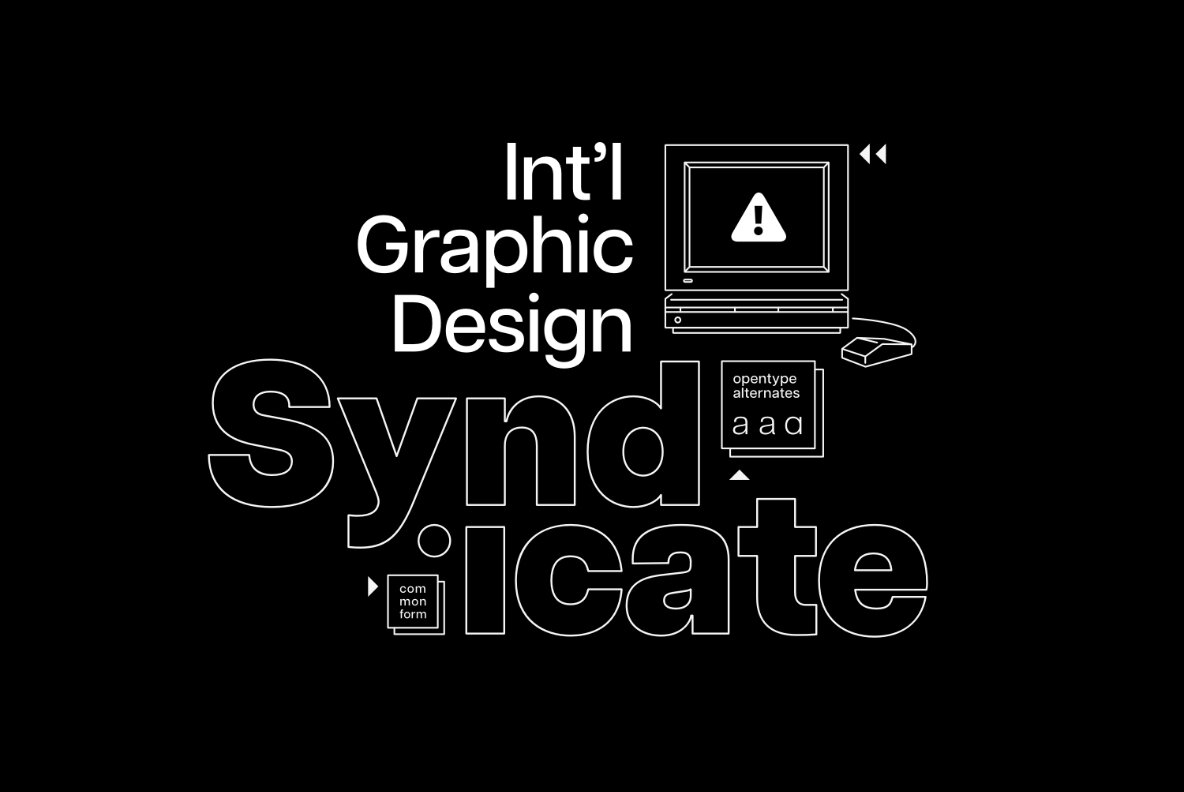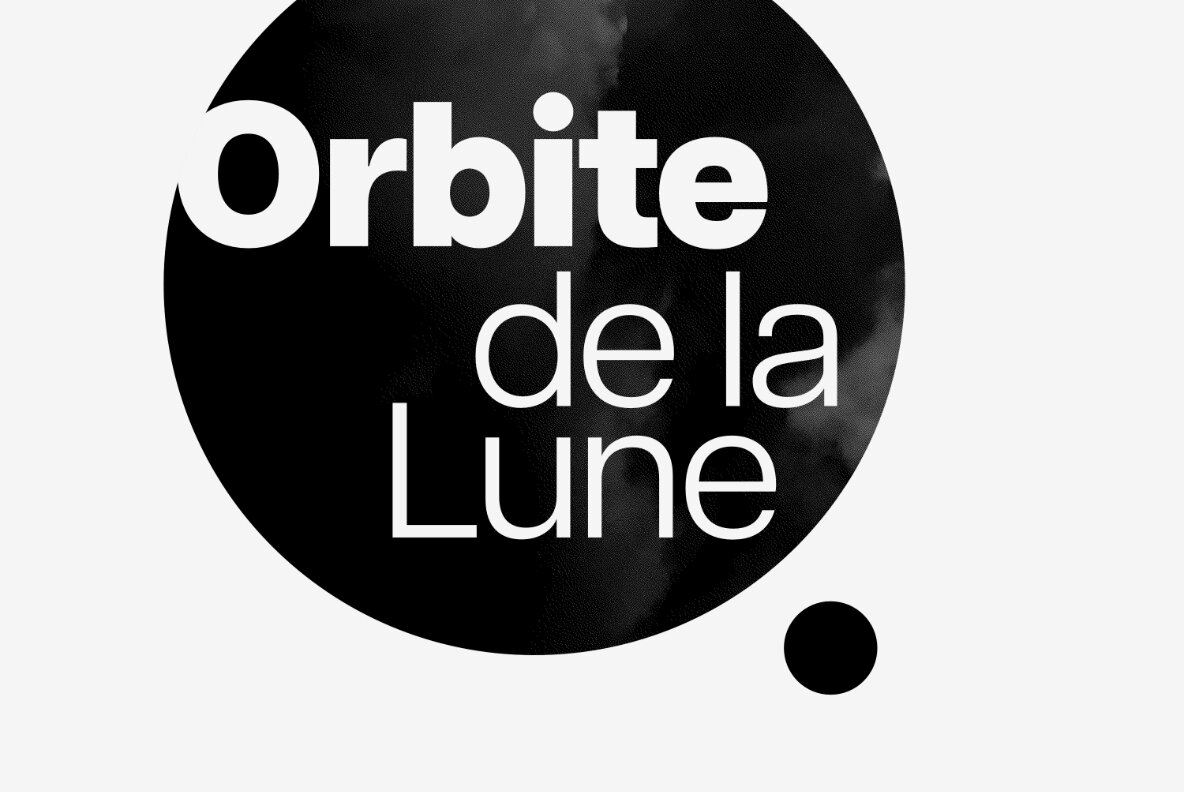
Articulat CF Font
Articulat© CF is a new take on the timeless Swiss typography style. Strong, sharp and well-spoken, Articulat was built to be versatile, charismatic and legible. Always in style, use it for a hit of mid-century beauty – reimagined for the 21st century with more flavor and individuality. Includes nine weights, obliques, alternates, fractions and more. Feature Summary - 9 weights - Oblique set - Alternate glyphs, ligatures, fractions - Most Latin-based scripts supported - Free updates/bug fixes - OTF and Webfont